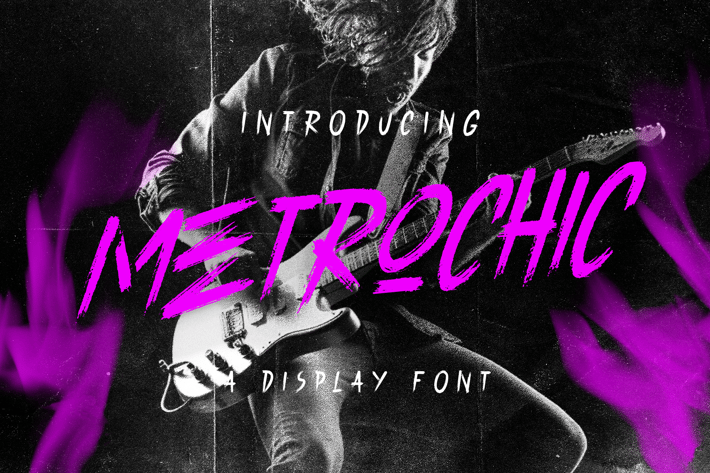
Metrochick Marker Brush Display Font
Metrochick Marker Brush Display Font highly detailed. Marker Display Font.
It would make a great choice for exquisite retro-urban designs, business branding, logos, Apparel designs, and more.